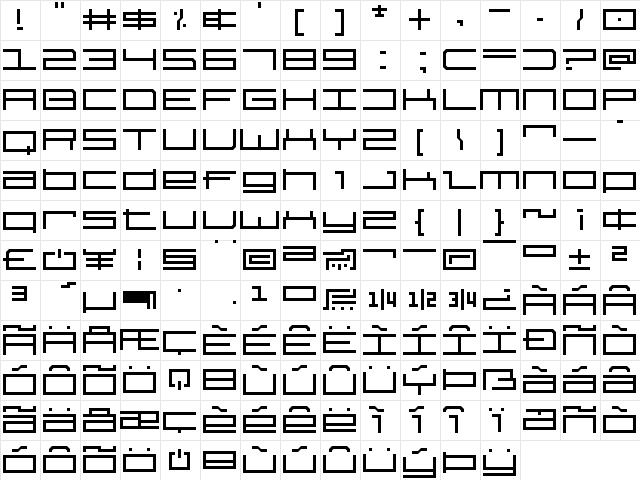
Techno 'Til Dawn Regular
Design Context for Techno 'Til Dawn Typeface
Techno 'Til Dawn channels digital-age aesthetics through its sharp, structured letterforms — ideal for brands that want to signal innovation.